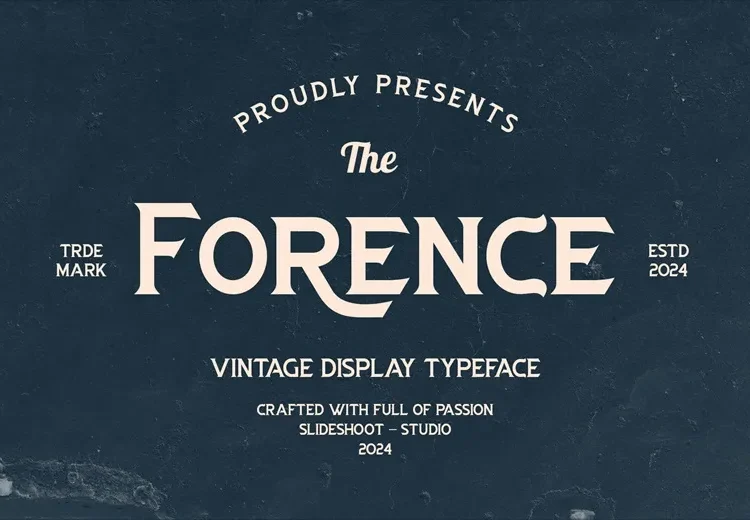
Forence Font
Forence is a vintage display serif font that combines traditional charm with a modern twist. It features a range of alternates, including unique first and last letter designs, making it perfect for creating memorable logos and other vintage-inspired designs. The striking connections and changes between its glyphs give this font a distinct character, making it ideal for anyone looking to incorporate a classic, old-school feel into their work.
Whether you’re designing for branding, invitations, or product packaging, Forence adds an elegant yet timeless touch to your projects. Its sophisticated style and flexibility make it a great choice for designers seeking a balance between tradition and contemporary aesthetics.